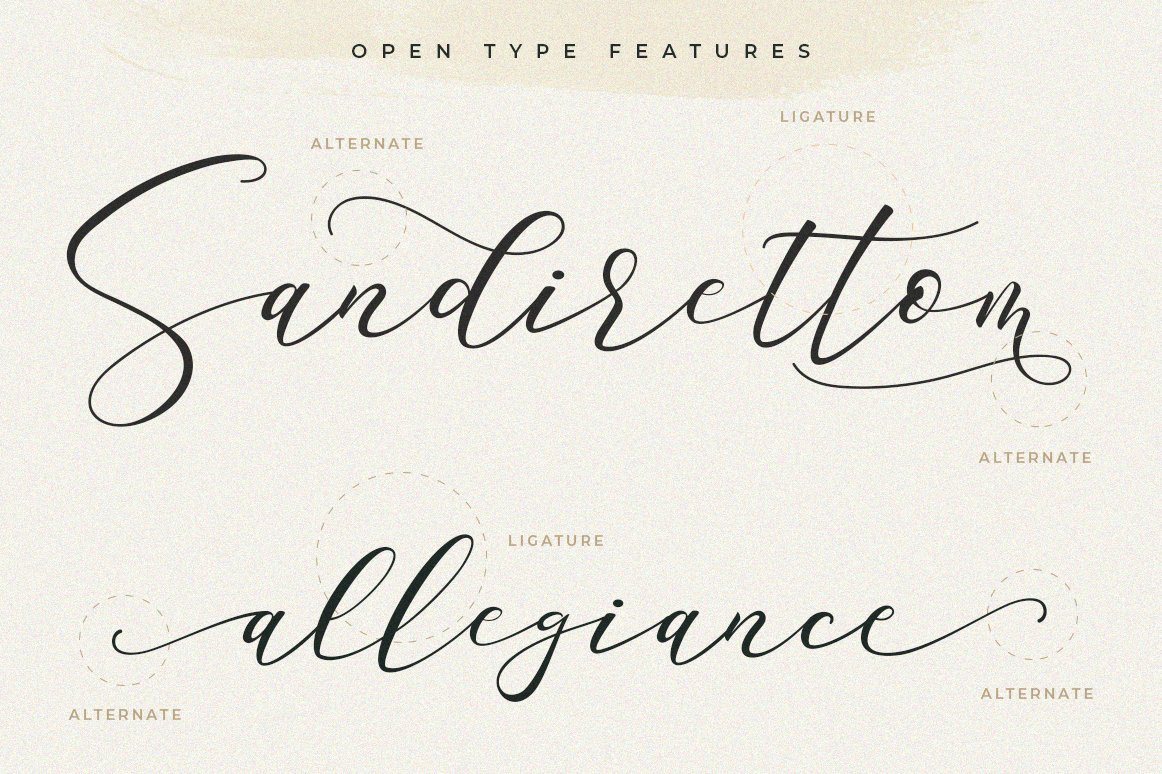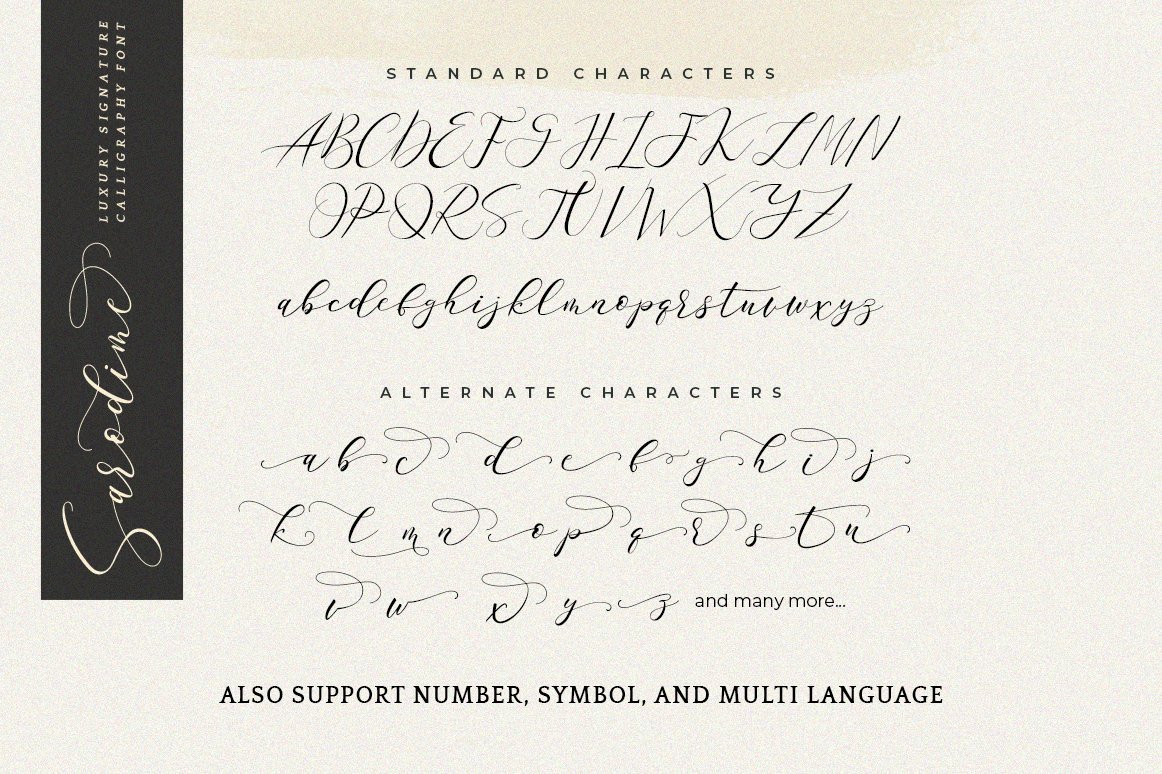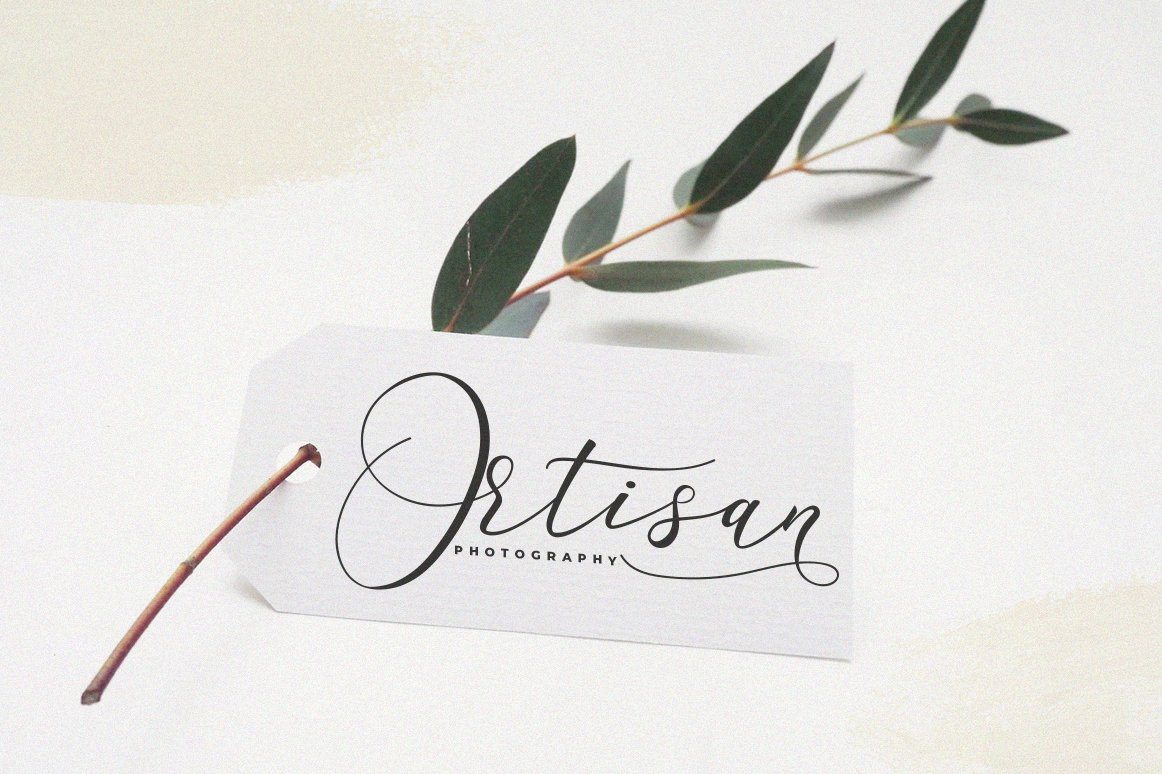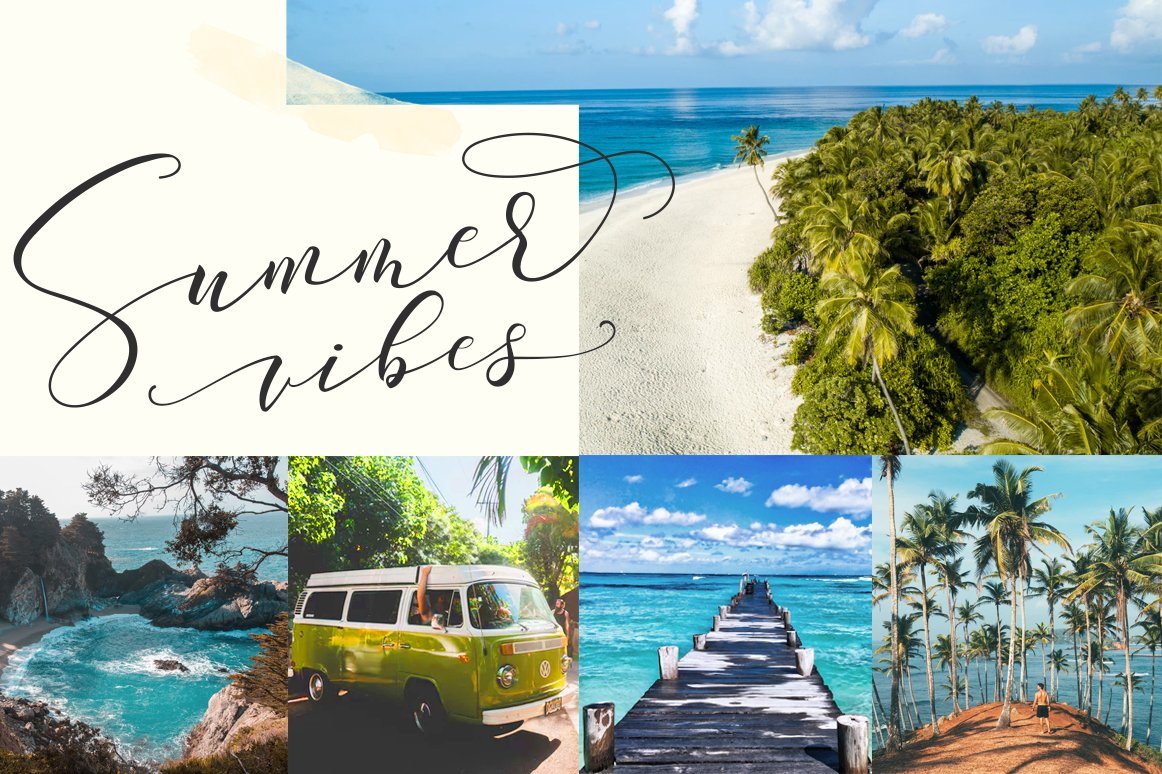
About Sarodime Script
Sarodime Script is a romantic calligraphy font with a natural & stylish flow. This collection of scripts is perfect for personal branding. Sarodime Font is perfect for many different projects such as logos & branding, invitation, stationery, wedding designs, social media posts, advertisements, product packaging, product designs, label, photography, watermark, special events or anything. What’s Included : Ton of glyphs (include Uppercase, Lowercase, Numerals & Punctuations, Ligature, Alternate, and Swashes) Works on PC & Mac Simple installations Accessible in the Adobe Illustrator, Adobe Photoshop, Adobe InDesign, even work on Microsoft Word. PUA Encoded Characters – Fully accessible without additional design software. Fonts include Multilingual Support for: Afrikaans, Albanian, Danish, Dutch, Estonian, Finnish, German, Icelandic, Italian, Norwegian, Portuguese, Spanisch, Swedish, Zulu I highly recommend using a program that supports OpenType features and Glyphs panels such as Adobe Illustrator, Adobe Photoshop CC, Adobe InDesign, or CorelDraw, so you can see and access all Glyph variations. We hope you enjoy the font. Thank You.